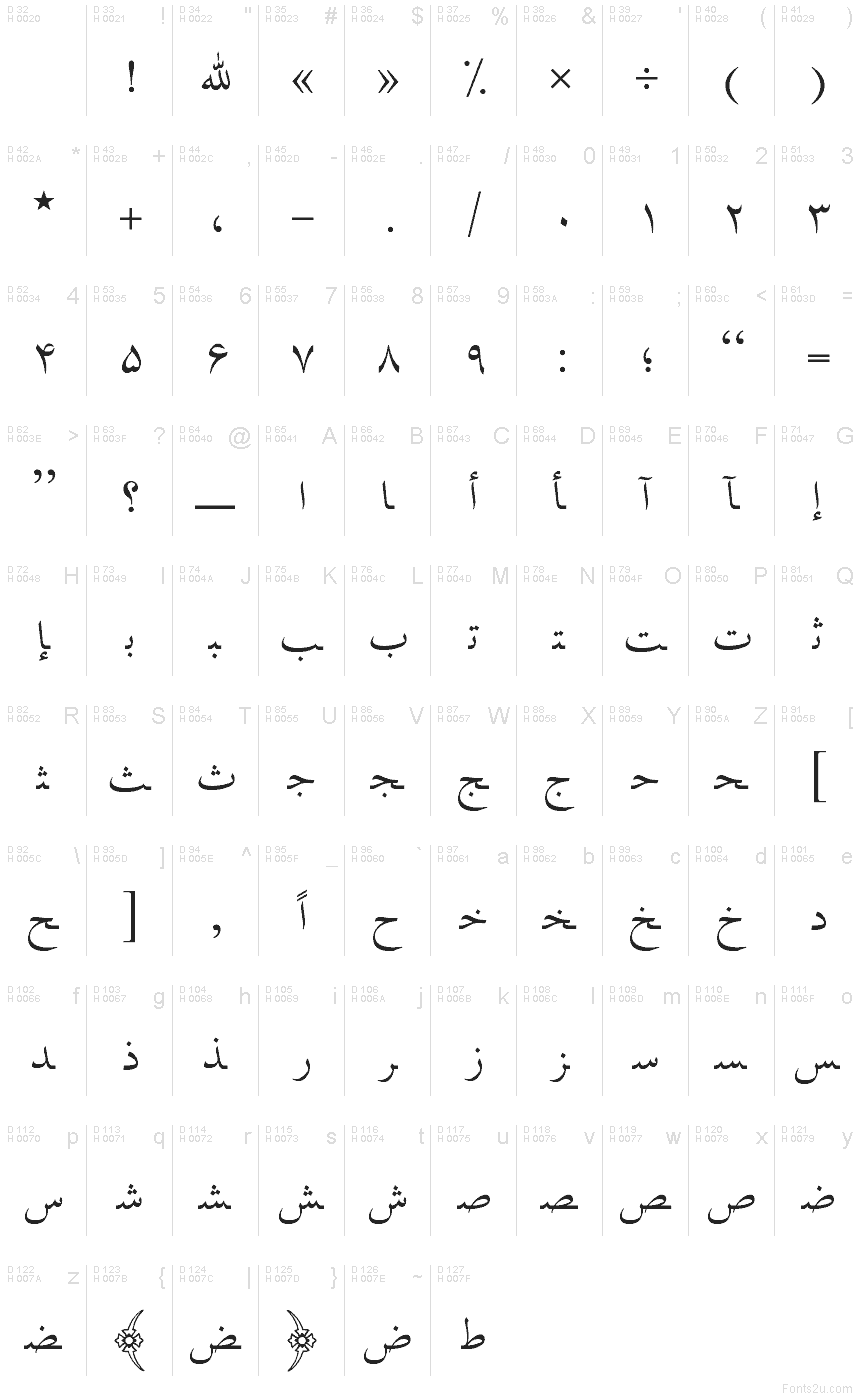
PersianSSK 1 Regular
PersianSSK 1 font showcases flowing, elegant lines inspired by Persian script. This free Arabic font carries traditional cultural significance and integrates ornamental elements in a harmonious balance. Its design language includes long trailing strokes, classy medium-length ascenders, and graceful arcs that collectively bring out a classical functional style.
PersianSSK 1 is suitable for cultural writings, quotes and sayings, poetry designs, novels by noted authors of the past, books with classical themes or purposes surrounding historical research and learning. The font also finds relevance in social media posts about art, travel brochures consisting of beautiful scenic locations known globally for their captivating beauty.